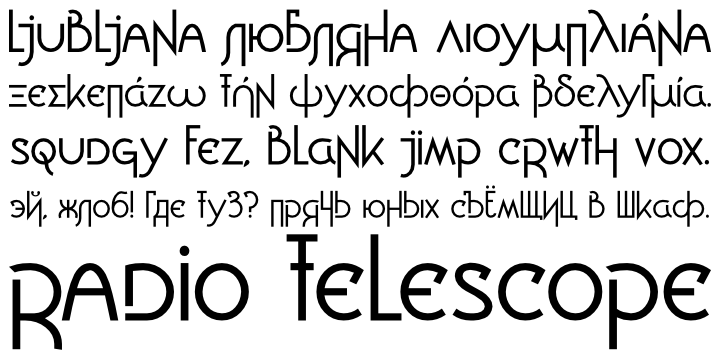
Ljubljana was inspired by art deco lettering seen in Slovenia, Croatia and Romania. It includes the Latin, Greek, and Cyrillic alphabets. It is named after the capital of Slovenia.
Ljubljana is unicase, composed of as few basic glyphs as possible. The basic glyphs are shown in black, and the derived or duplicated glyphs in grey.
Ljubljana attempts to encapsulate the essence of both upper and lower case designs in a single glyph. It also explores the common origins of the Greek, Latin, and Cyrillic alphabets, using the same glyph in more than one alphabet.